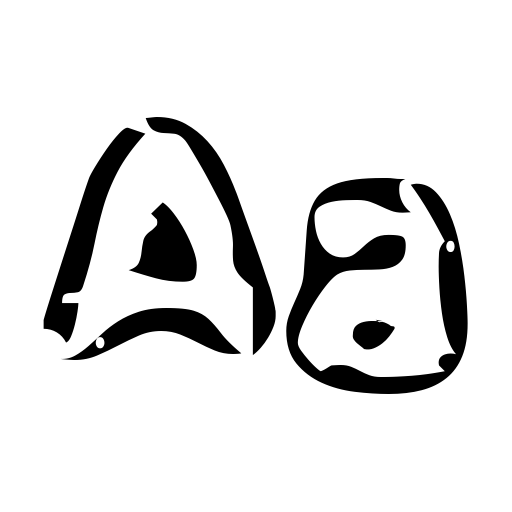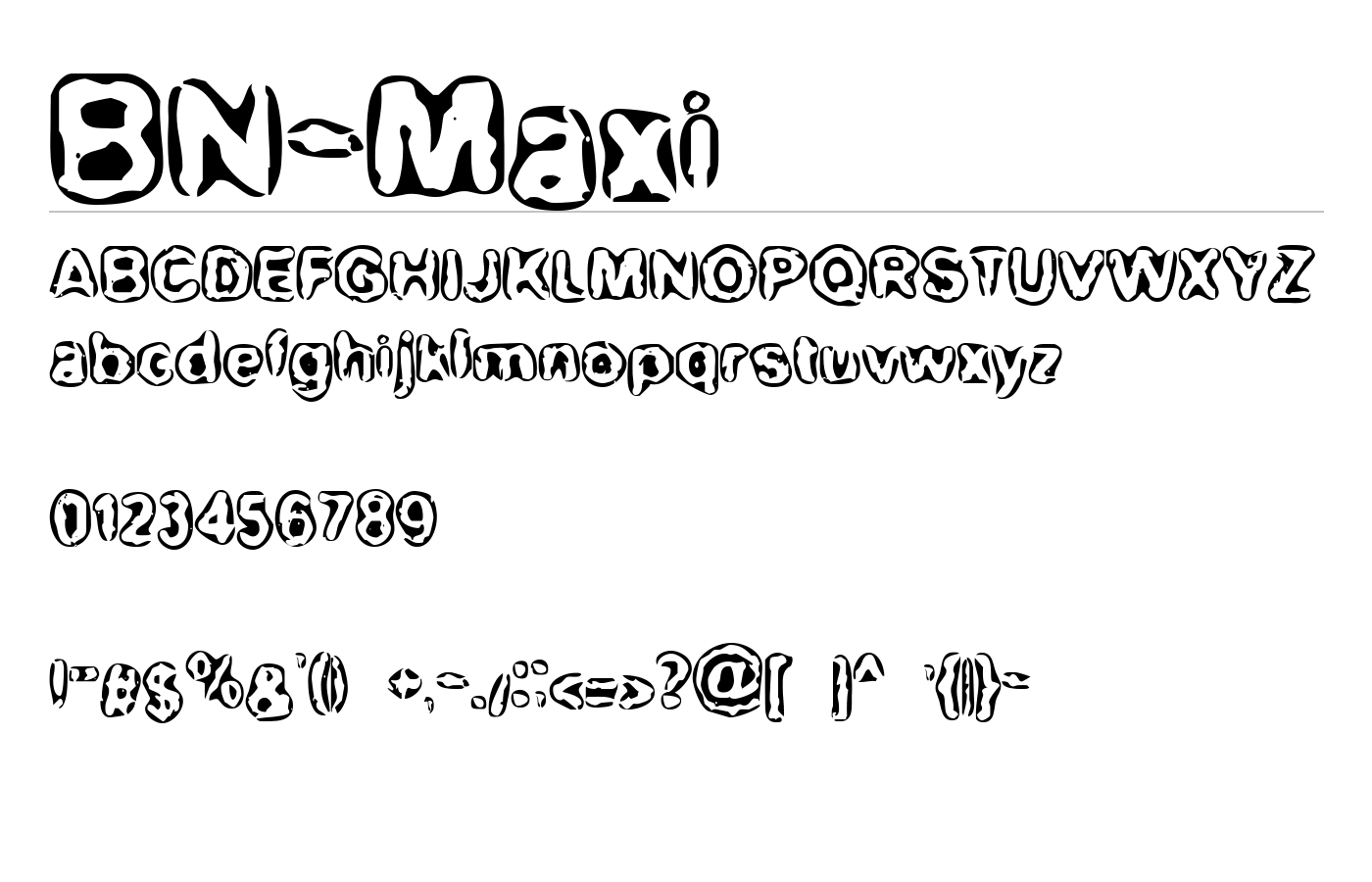
BN-Maxi is a bold, playful display font with irregular, hollowed letterforms that give it a distinct, hand-crafted appearance. Its lively and quirky style makes it perfect for eye-catching headlines, posters, and creative branding where a fun and unique personality is desired. This font's uneven strokes and informal vibe work well for projects seeking a casual, artistic touch.
BN-Maxi Font